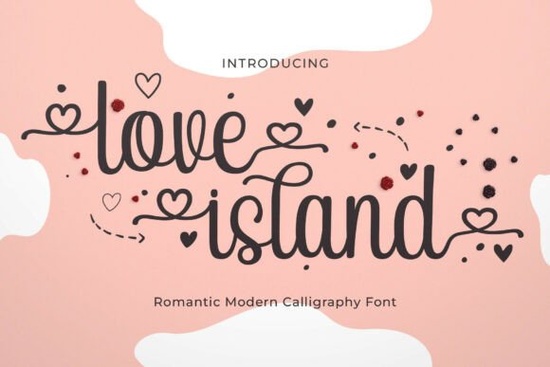
If you've been searching for a modern calligraphy typeface that feels hand-lettered without looking messy, Love Island Font is worth a close look. It's a fluid, romantic script designed for projects that need a polished, elegant touch think wedding invitations, branding materials, custom signage, and social media graphics. Whether you're a seasoned designer or someone who just picked up their first Cricut, this font works well across a variety of creative workflows.
What Makes Love Island Font Stand Out?
Plenty of calligraphy fonts lean too far in one direction either overly formal and stiff, or so loose they're hard to read. Love Island strikes a practical middle ground. Its smooth, connected letterforms have a natural hand-drawn quality, but the curves are carefully balanced so the text stays legible at different sizes.
A few things that set it apart:
- Flowing, connected strokes that mimic real brush or pen calligraphy
- Clean spacing between letters, so words don't blur together
- Works at both large and small sizes good for headers and subtext alike
- Full character set with uppercase, lowercase, numbers, and punctuation
If you're comparing it to other popular scripts like this beautiful calligraphy option with delicate swashes, you'll notice Love Island has a slightly more relaxed, modern feel. It doesn't try too hard and that's part of its charm.
What Projects Can You Use It For?
This is where the font really earns its place in your collection. Love Island is versatile enough to handle a surprising range of design work.
Wedding Stationery
Invitations, RSVP cards, menus, table numbers, seating charts basically every piece of paper or signage that needs to feel romantic and personal. The flowing script style gives that bespoke, handcrafted look without requiring actual hand-lettering skills.
Vinyl and Craft Projects
If you work with Cricut Design Space, Silhouette Studio, or Brother ScanNCut, this font cuts cleanly as long as your settings are dialed in. It's great for custom decals, tote bags, t-shirts, and mugs. For crafters who want something with a similar bold personality, this bold calligraphy style is another option worth checking out.
Home Décor and Signage
Wooden signs, acrylic lettering, wall art, and personalized gifts all benefit from a typeface that looks artisan without being unreadable. Love Island works nicely for quotes, family names, and meaningful phrases you'd hang on a wall or give as a gift.
Branding and Social Media
Small businesses, especially in beauty, lifestyle, wedding, and boutique spaces, often need a script font that feels high-end but approachable. Use it for logo concepts, Instagram graphics, thank-you cards, or packaging mockups. It pairs well with clean sans-serifs for a modern contrast.
Does It Work With Cutting Machines?
Yes and this matters a lot for crafters. Love Island is fully compatible with the major cutting machine platforms. That said, keep these tips in mind when cutting script fonts:
- Weld your letters in your cutting software to avoid overlapping cuts
- Test at the size you plan to cut very small text can lose detail on intricate scripts
- Use the right material settings vinyl, cardstock, and HTV all behave differently
Fonts with thicker strokes tend to cut more forgivingly, but Love Island's medium weight handles well on most standard materials. If you prefer something with a bit more visual weight for crafts, this chunky display script might be a good complement to your toolkit.
How Does It Compare to Other Script Fonts?
There's no shortage of calligraphy fonts available, so here's an honest take. Love Island isn't trying to be the flashiest option on the market. It's a reliable, well-made script that delivers a consistent romantic aesthetic. Compared to something like this elegant serif-inspired display font, it occupies a different creative lane more personal, more organic, more suited to heartfelt projects.
Is It Beginner-Friendly?